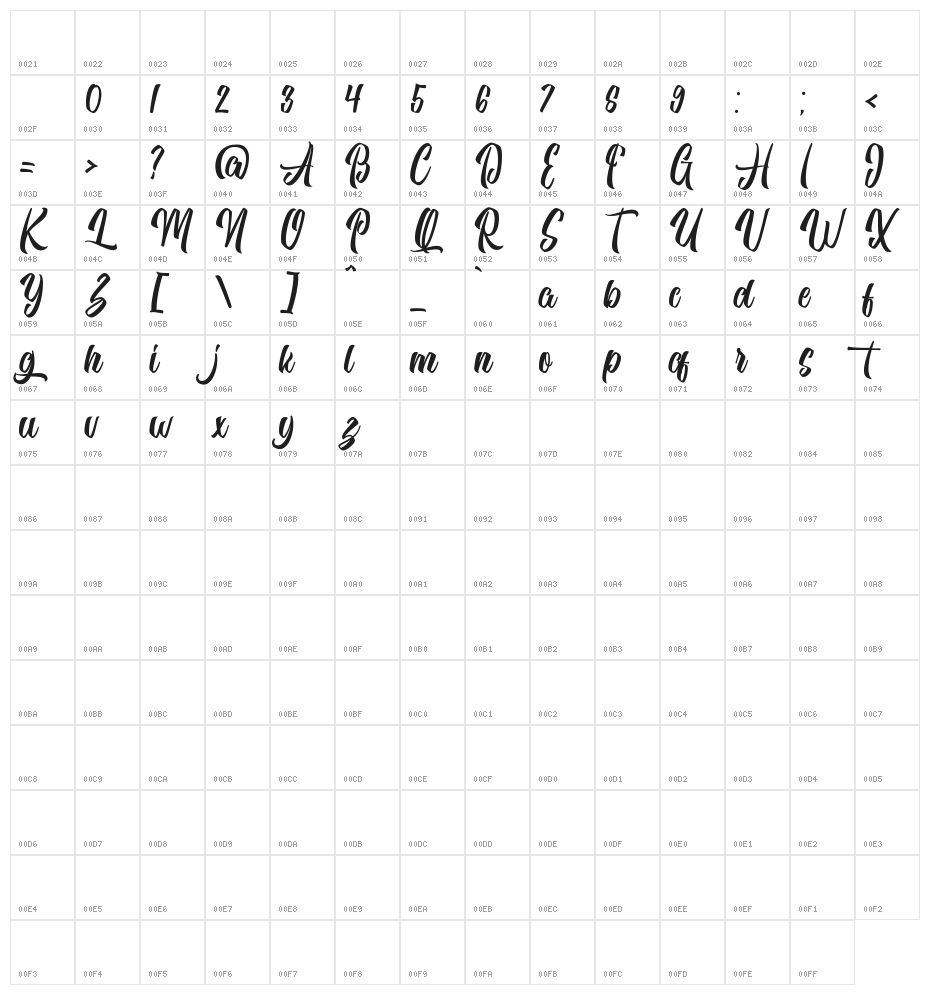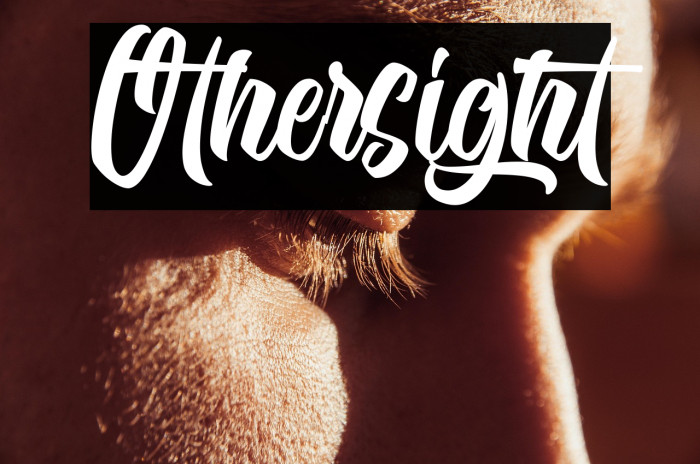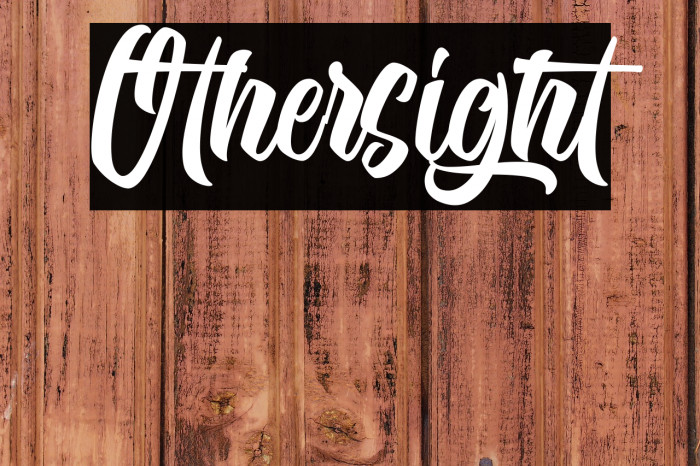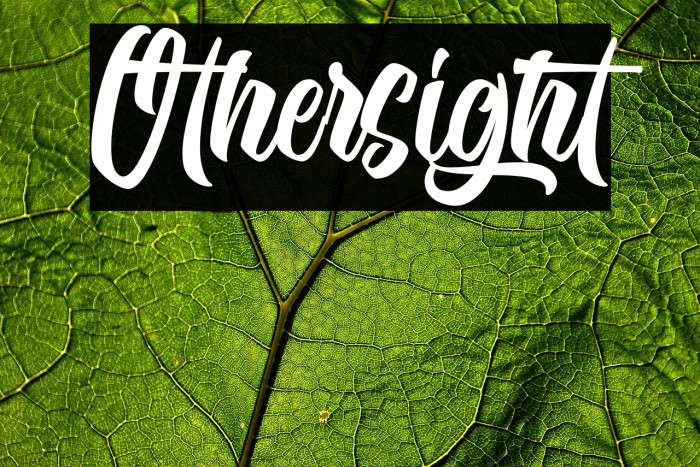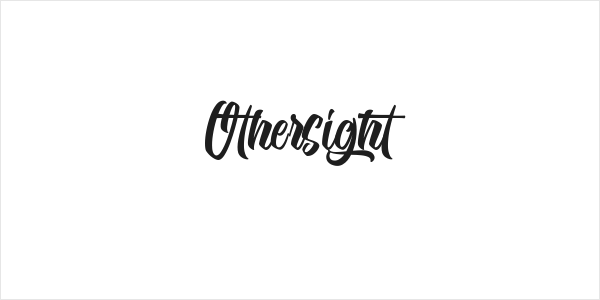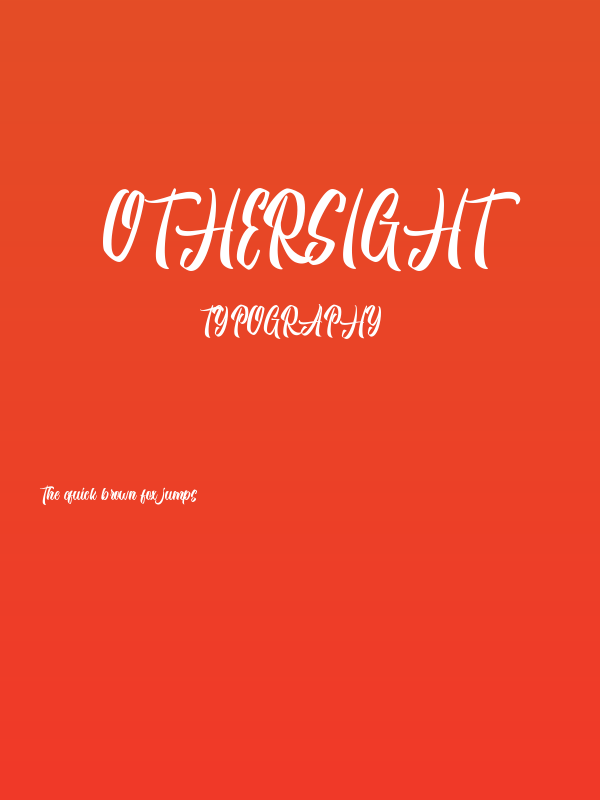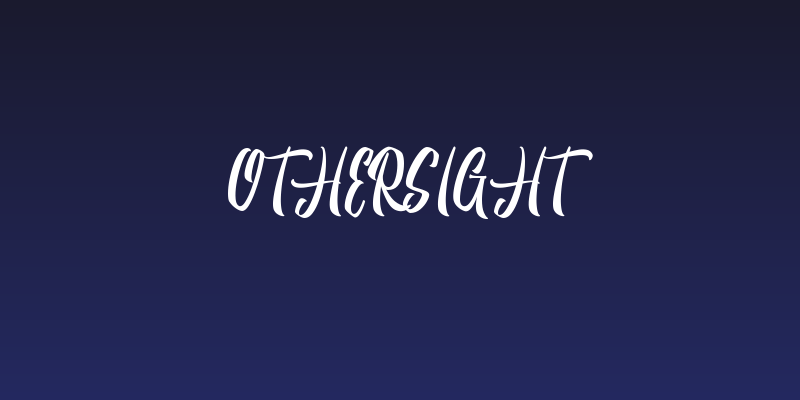
Othersight Font
Othersight Description
This font features a bold and expressive script style with a dynamic flow and elegant curves. The uppercase letters are characterized by their sweeping lines and dramatic flourishes, while the lowercase letters maintain a cohesive and fluid connection. The numerals are distinct and maintain the same bold presence as the alphabetic characters. The special characters are designed to complement the overall aesthetic, adding versatility to the font. This typeface exudes a sense of creativity and flair, making it ideal for projects that require a touch of sophistication and artistic expression.